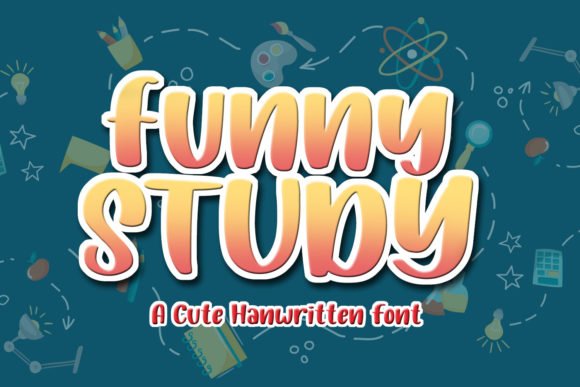
The Perfect Blend of Fun and Function: Funny Study Font
Funny Study Font is a charming display font designed to add a touch of whimsy to your designs. Perfect for fashion branding or editorial designs, this font is sure to bring a smile to your audience’s faces. Its smooth curves make it a valuable asset for designers looking to add a little personality to their projects.
Add the Funny Study Font to your design arsenal, and get ready to create something truly special. Its unique charm will elevate your work and leave a lasting impression on your audience.
Funny Study Font Key Features
- Unique Characteristics: The font features playful and humorous characters, including smiley faces and other emoticons, making it suitable for educational and entertainment purposes.
- Style Variations: The font comes in a range of styles, including regular, bold, italic, and bold italic, allowing users to add variety to their text.
Funny Study Font Review
Overall, I was quite excited to dive into the “Funny Study Font” and see what it had to offer. The font is designed to be a fun and playful take on traditional study fonts, with a focus on making learning a more enjoyable experience.
- Unique and playful characters that add a touch of personality to text
- Well-designed ligatures and letter combinations that enhance readability
- Works well in both digital and print formats, making it versatile for a range of applications
- May not be suitable for formal or professional applications, due to its playful nature
- Some characters may be difficult to read in certain font sizes or contexts
- Lack of a comprehensive character set, which may limit its use in certain languages or industries
While the “Funny Study Font” has its limitations, it’s a great choice for anyone looking to add a touch of fun and personality to their study materials or educational content. It’s perfect for blog posts, social media, or other digital applications where a playful tone is desired. However, it may not be the best choice for formal or professional projects.
To get the most out of “Funny Study Font”, try combining it with other fonts and design elements to create a visually appealing and humorous design.
Experiment with different font sizes, colors, and styles to add emphasis and create a playful tone.
“Funny Study Font” is perfect for creating humorous memes, social media posts, and study aids.
Use it to add a lighthearted touch to your presentations, posters, and flyers.